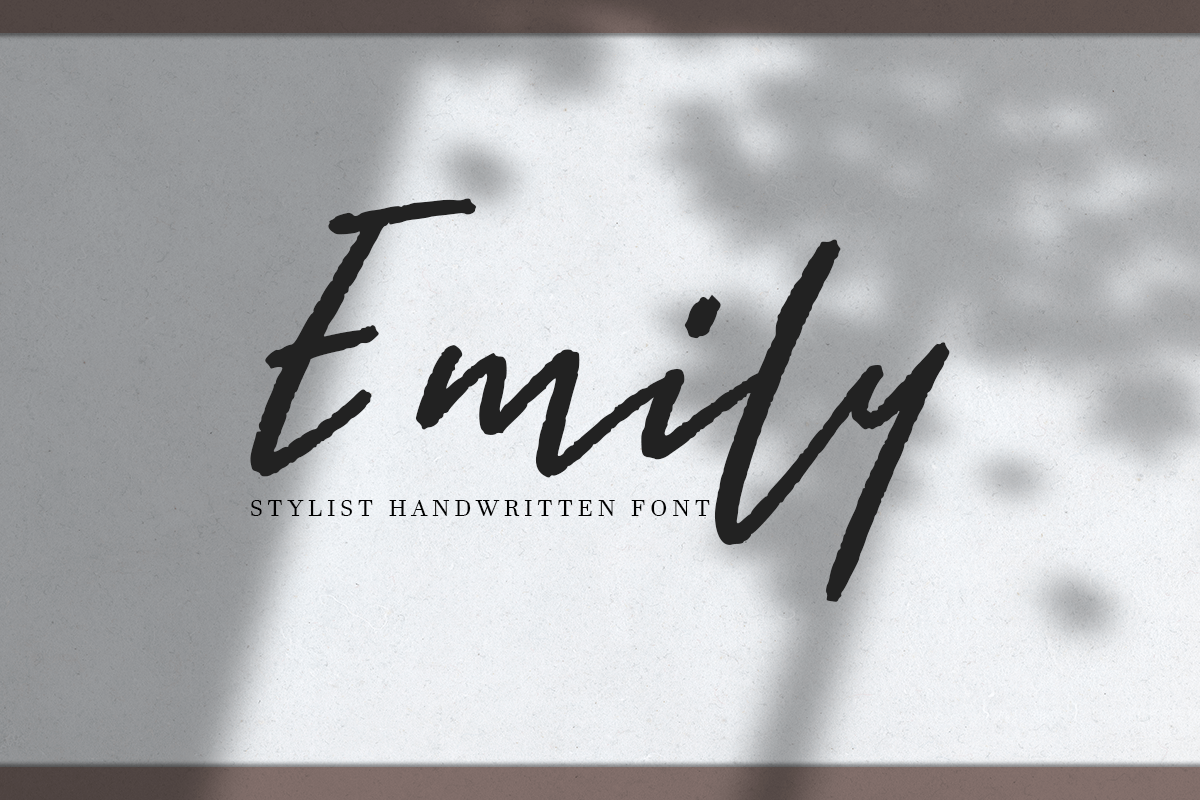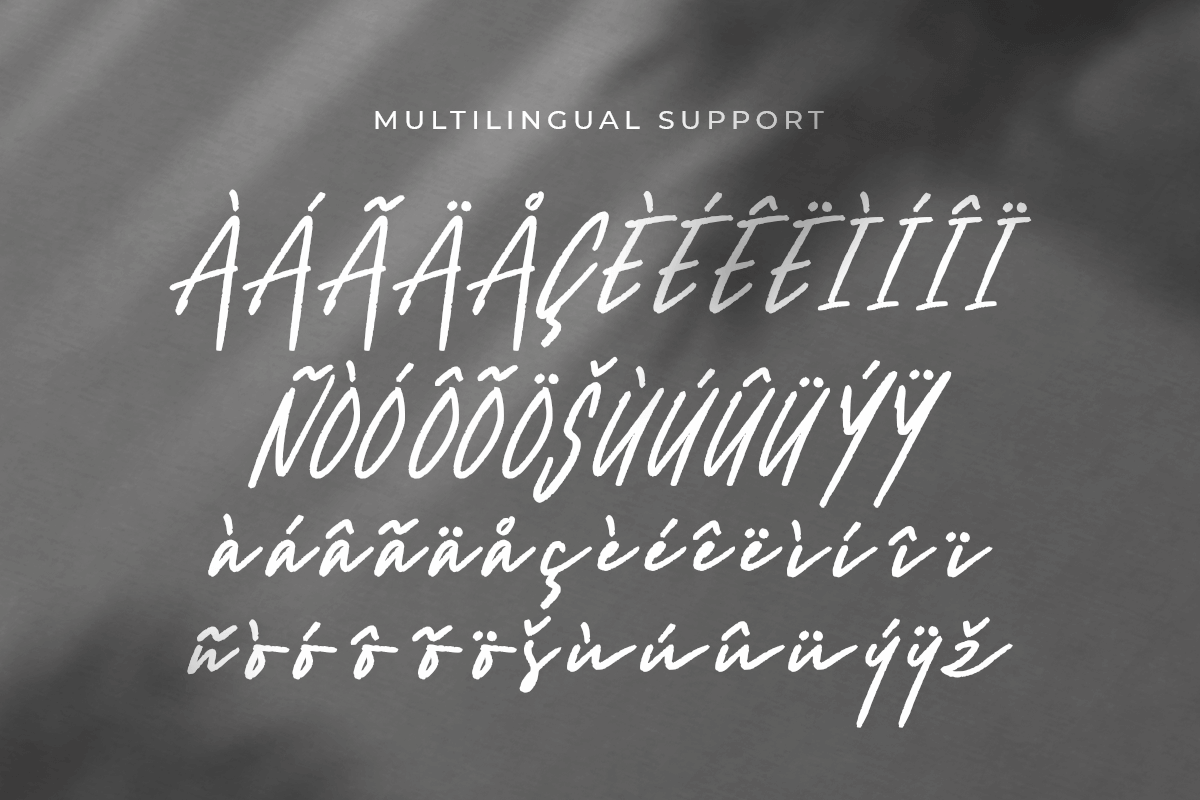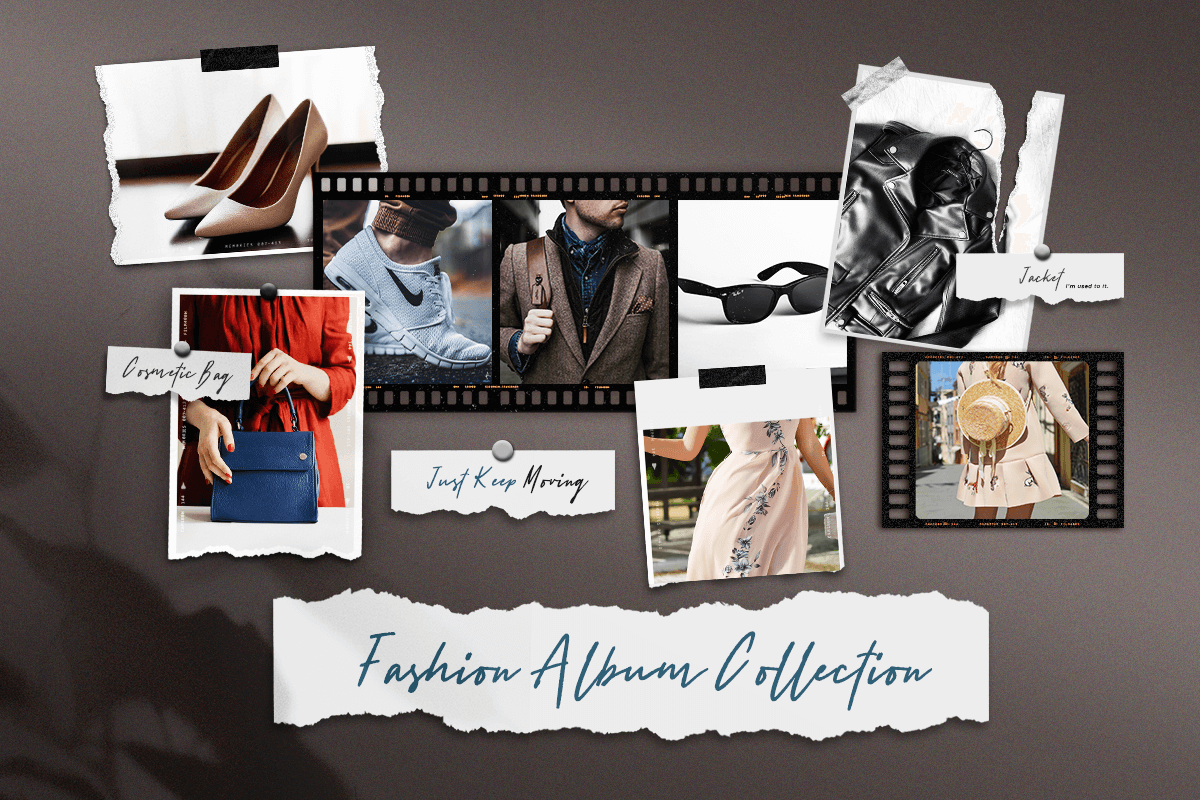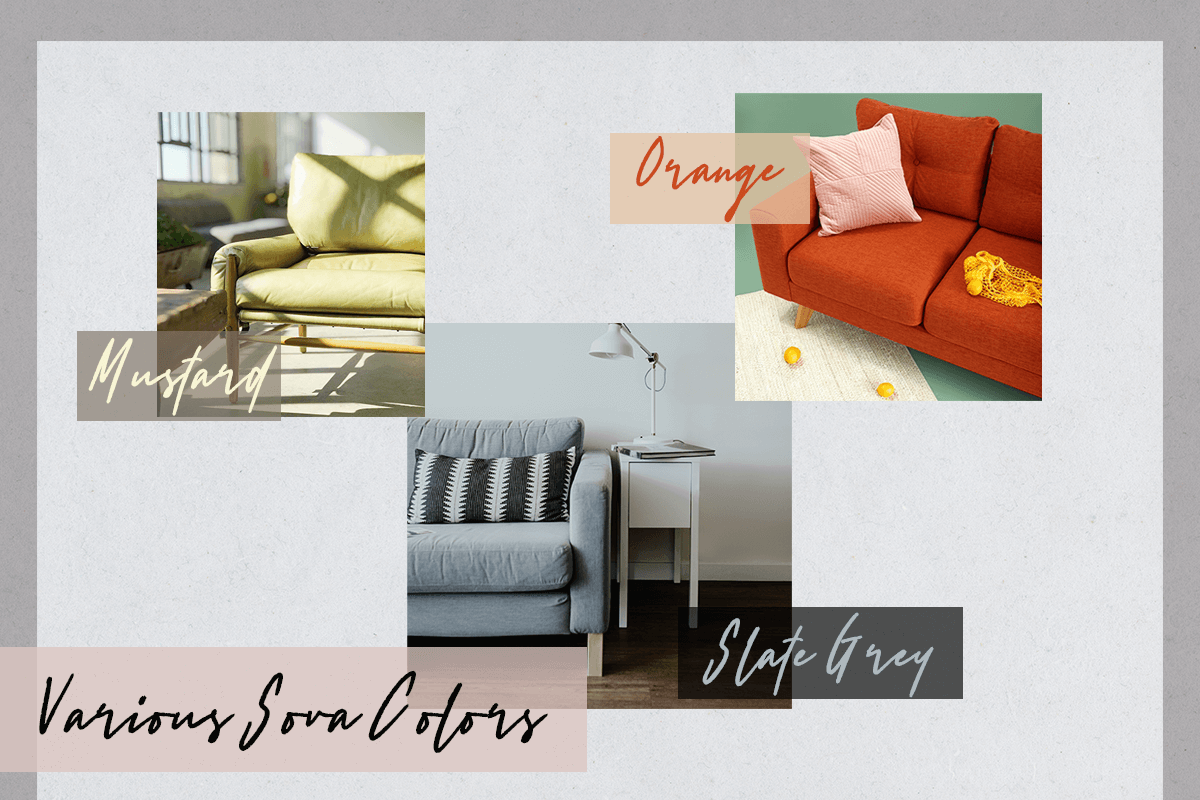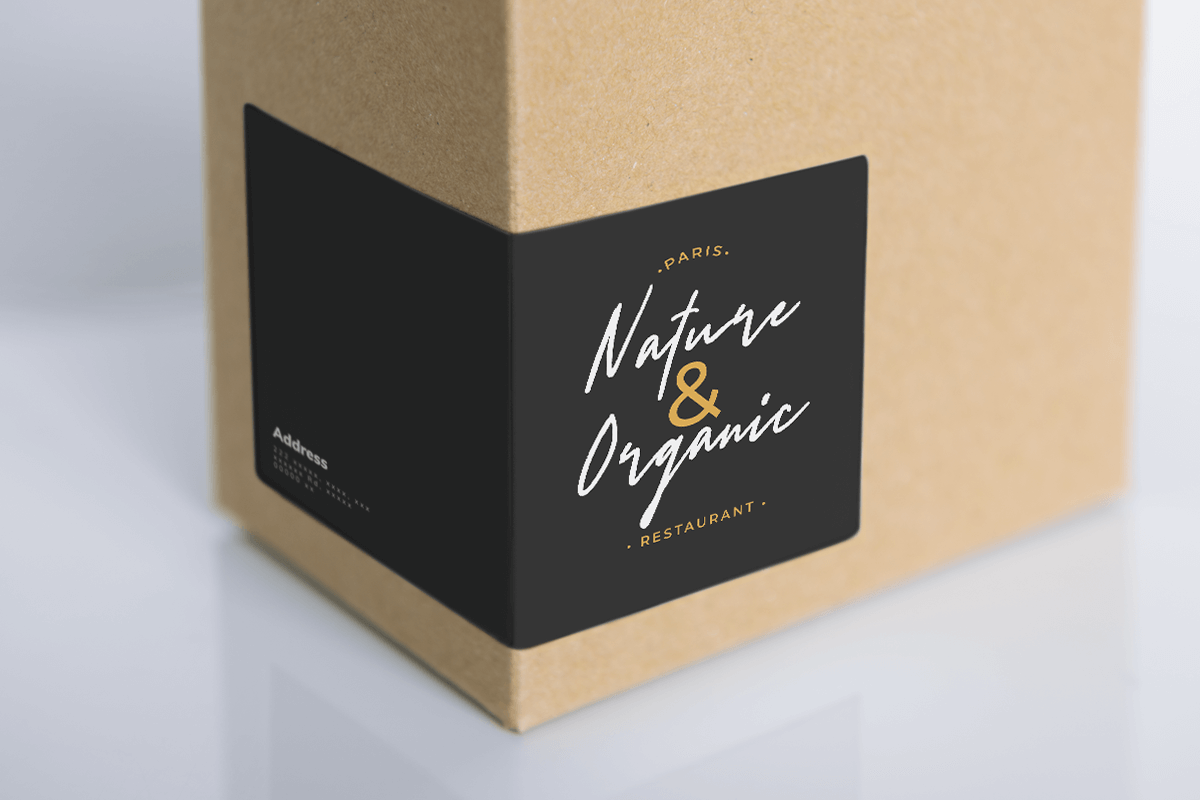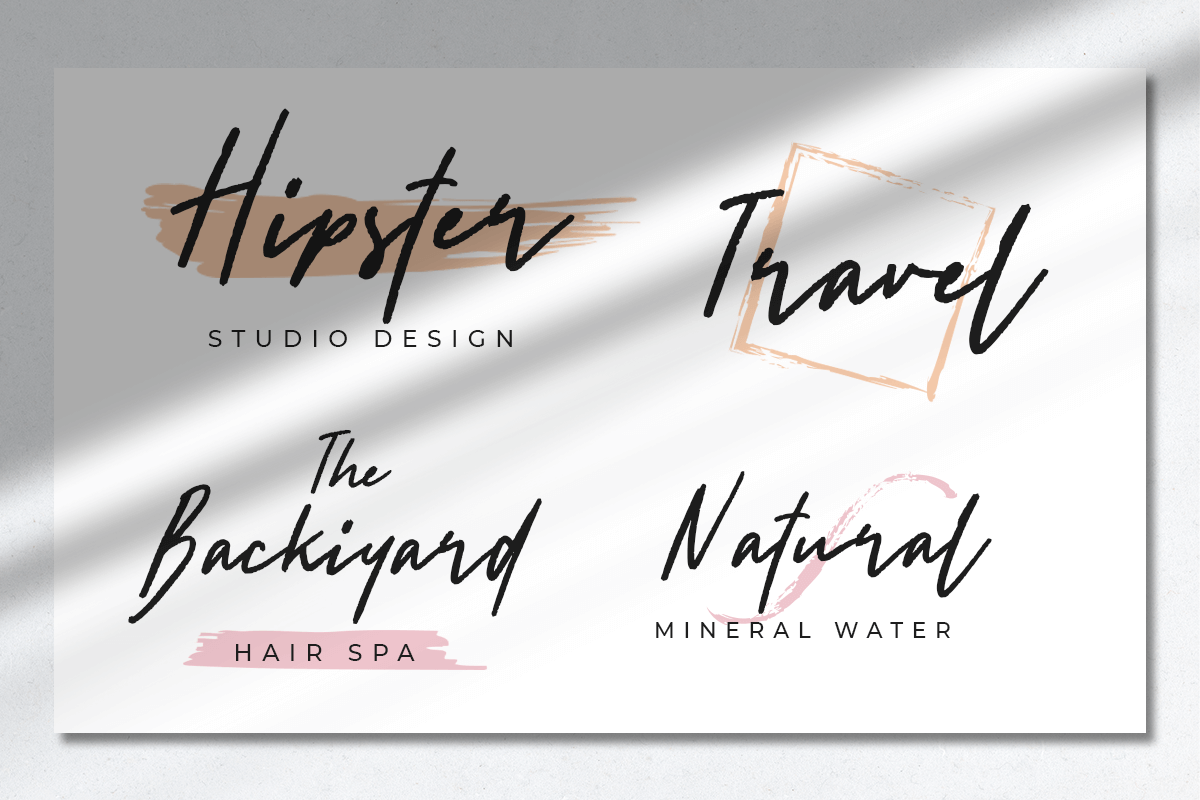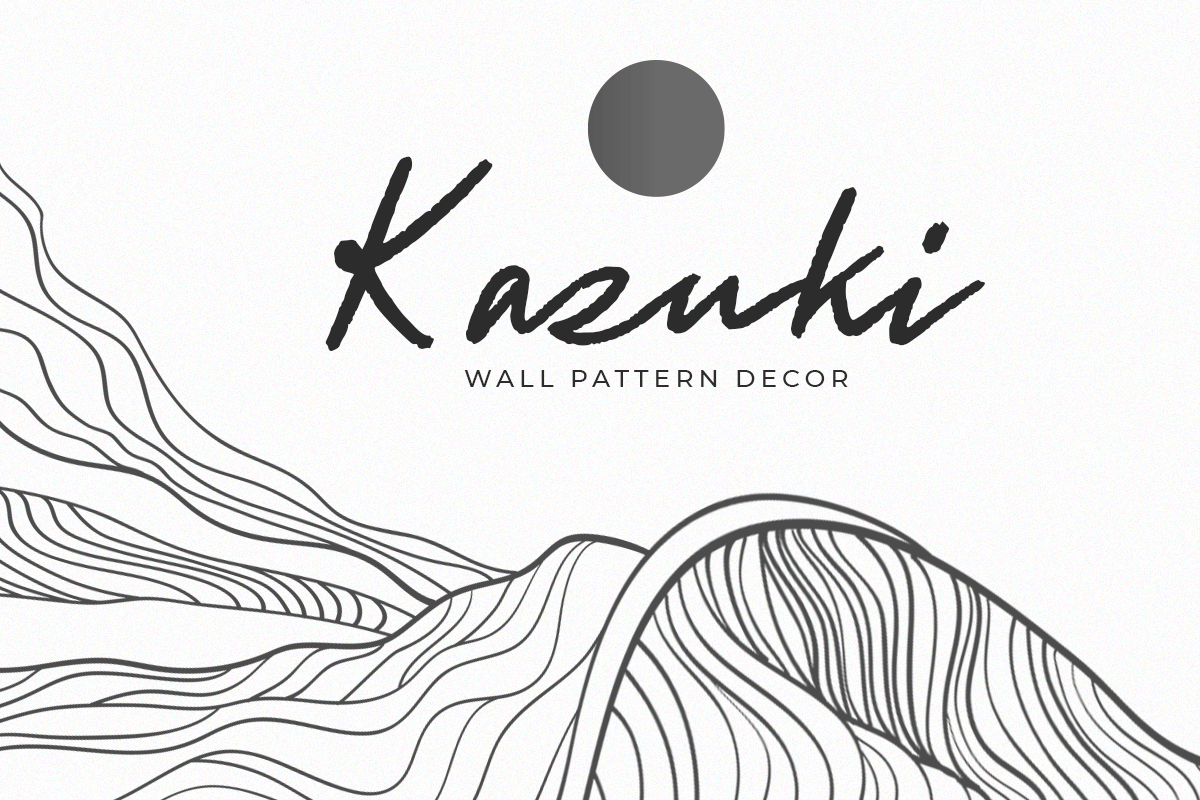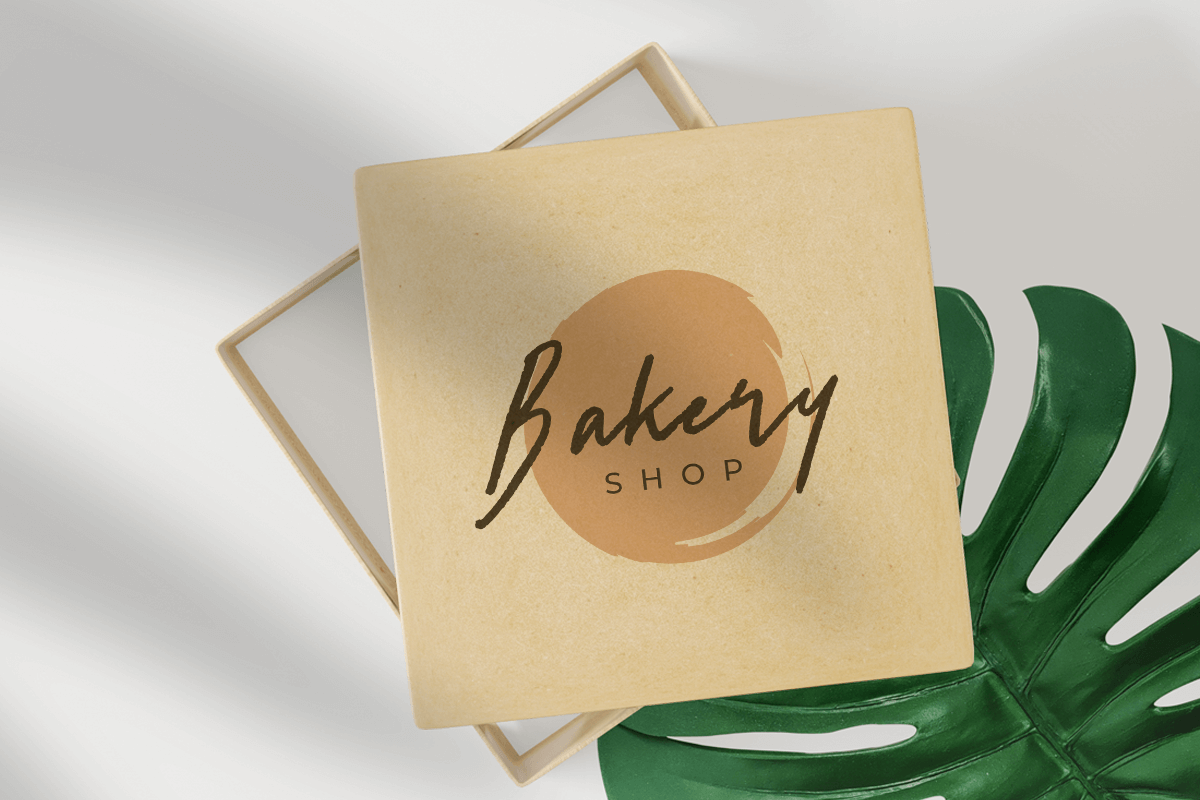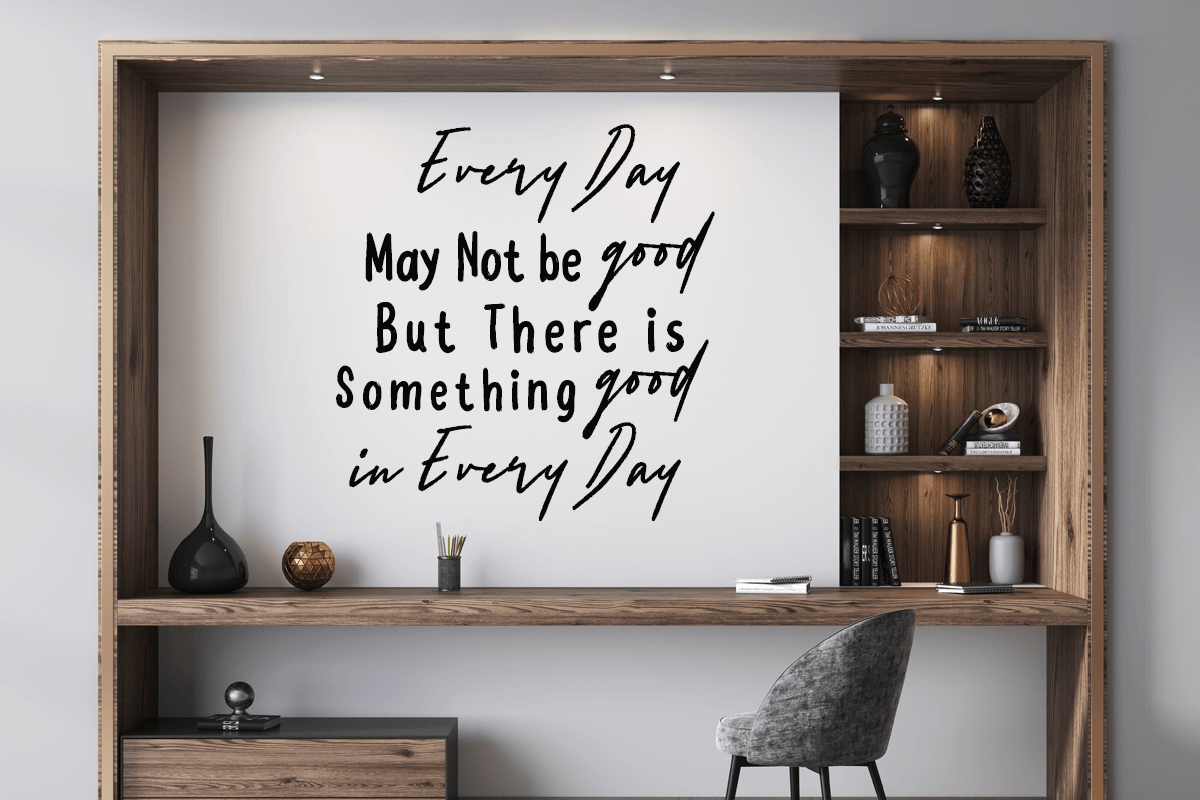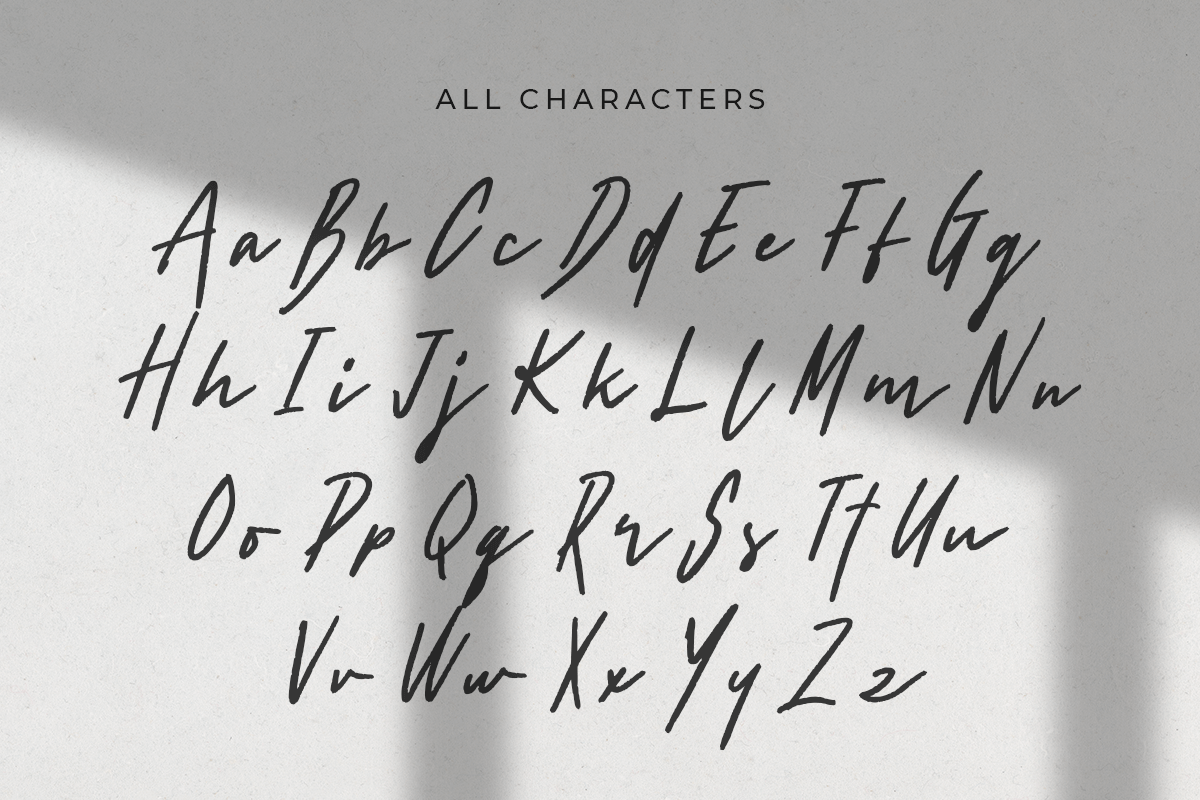
Emily
-Stylish Handwritten Font
Emily – Stylish Handwritten Font. Inspired from beauty and feminine style very good for signature, stationery, logo, typography quotes, magazine or book cover, website needs.